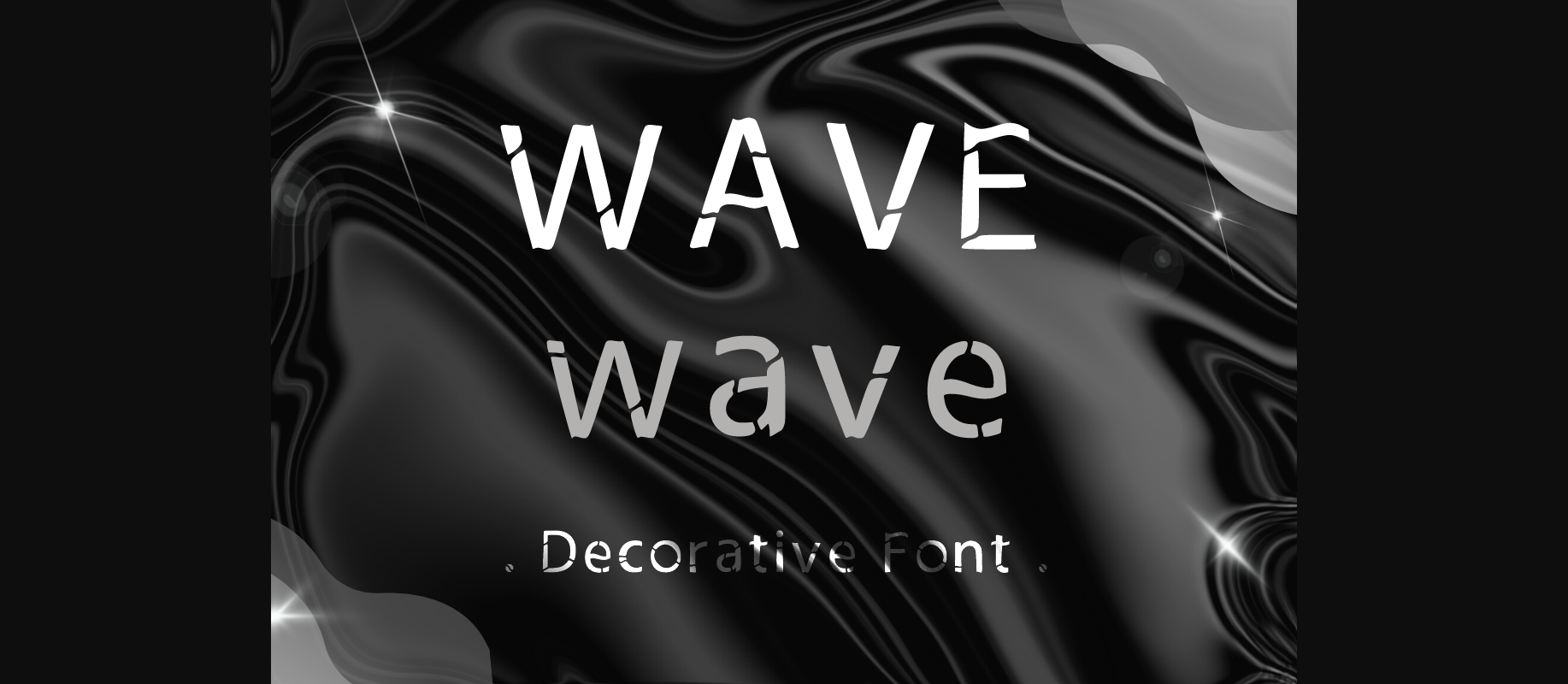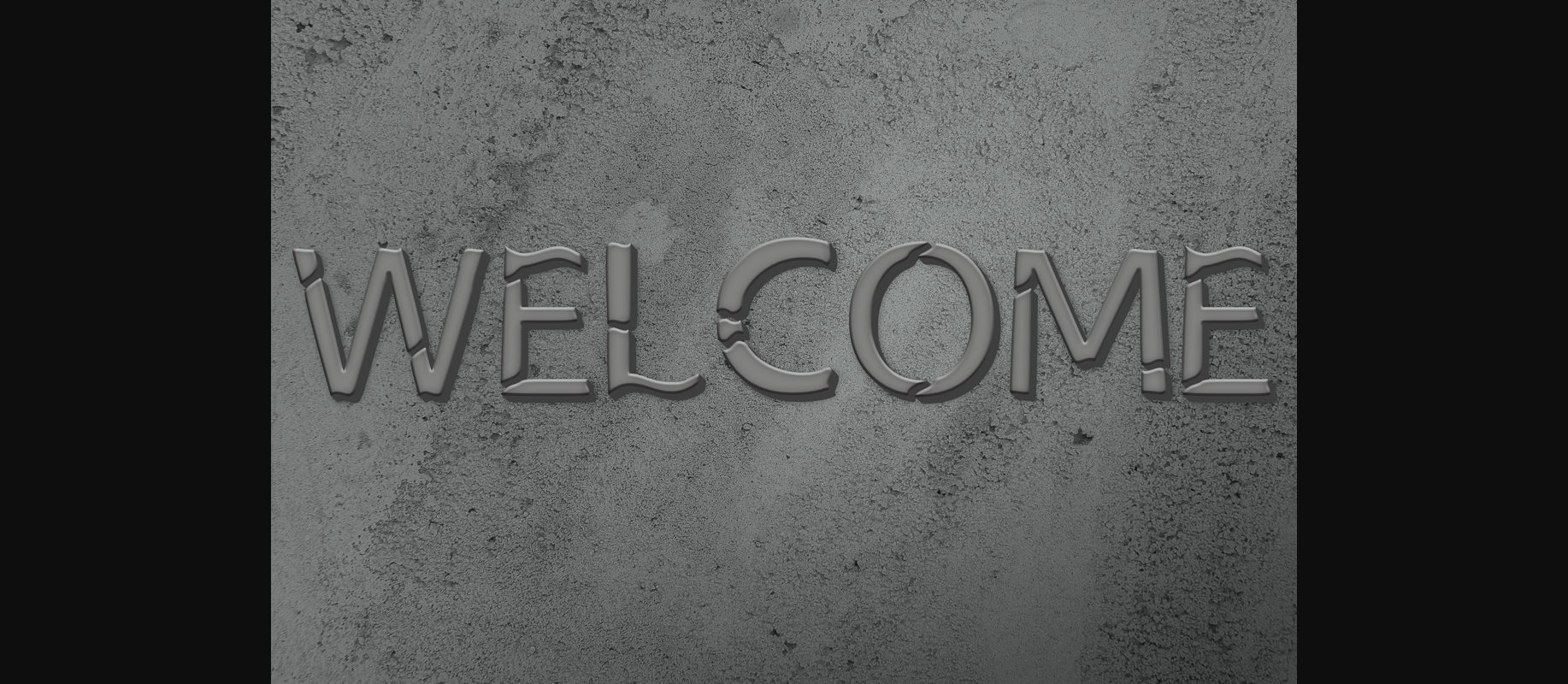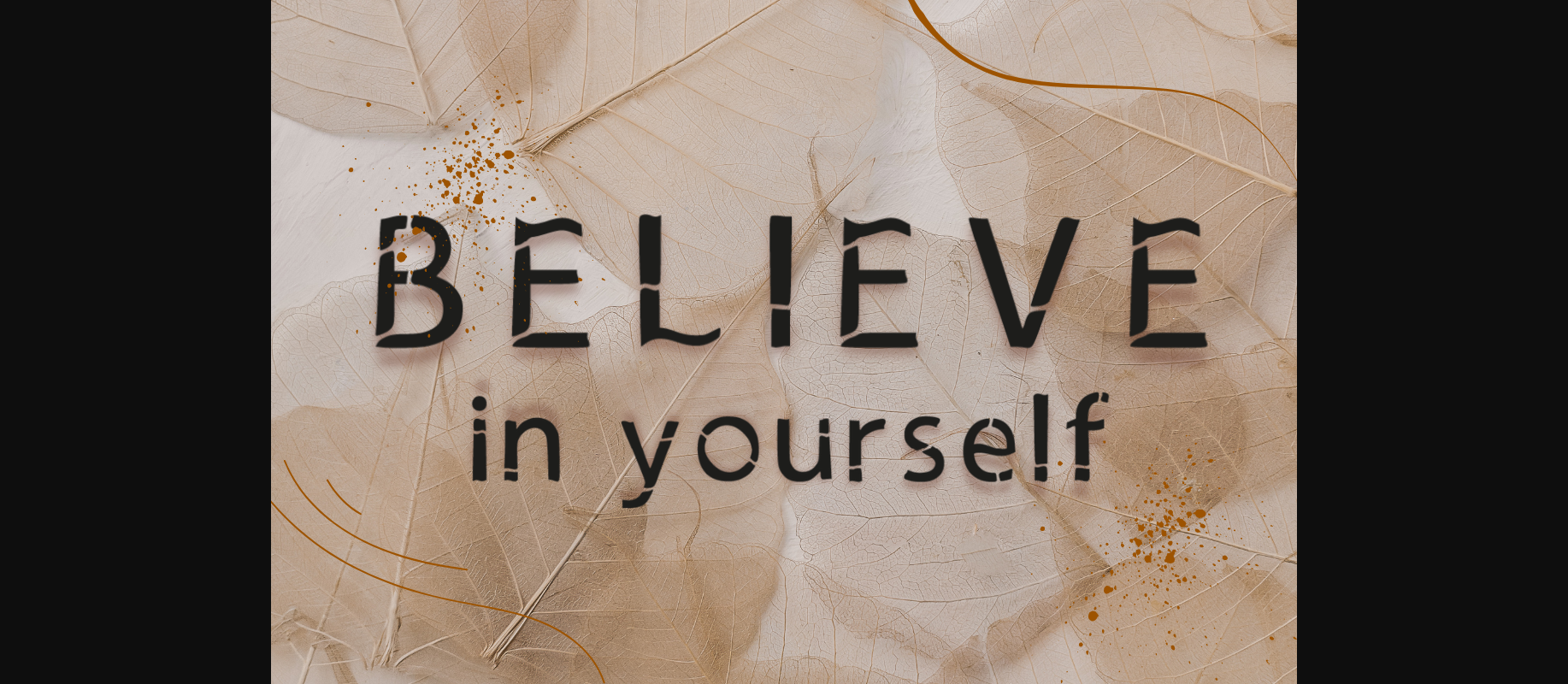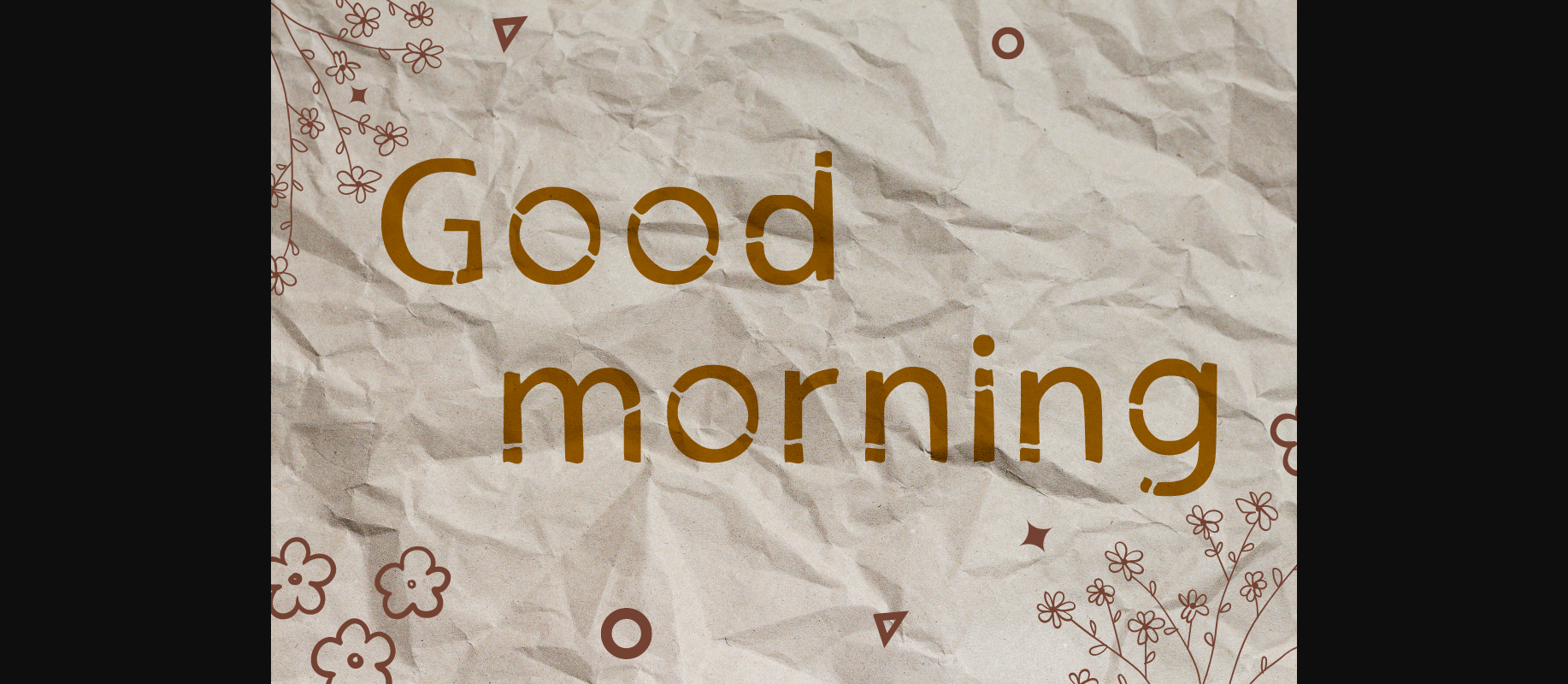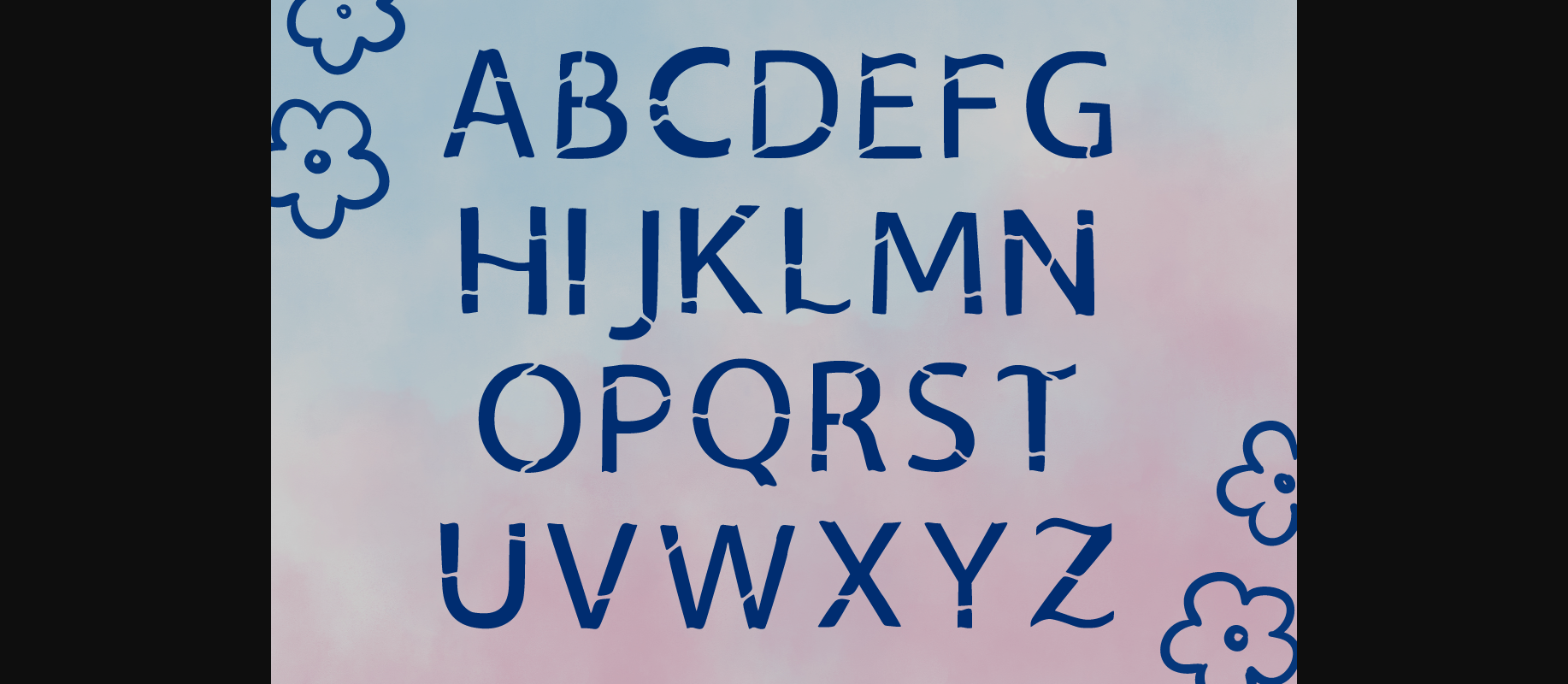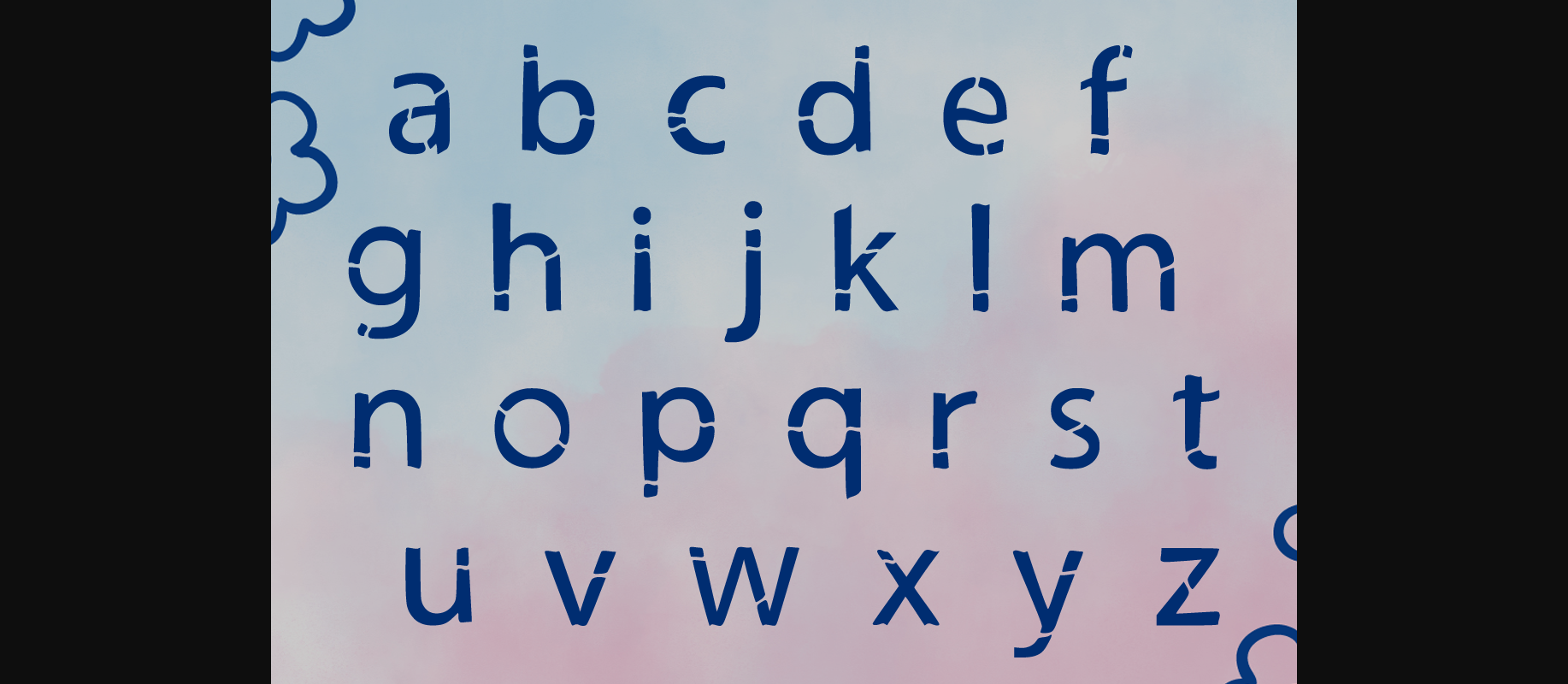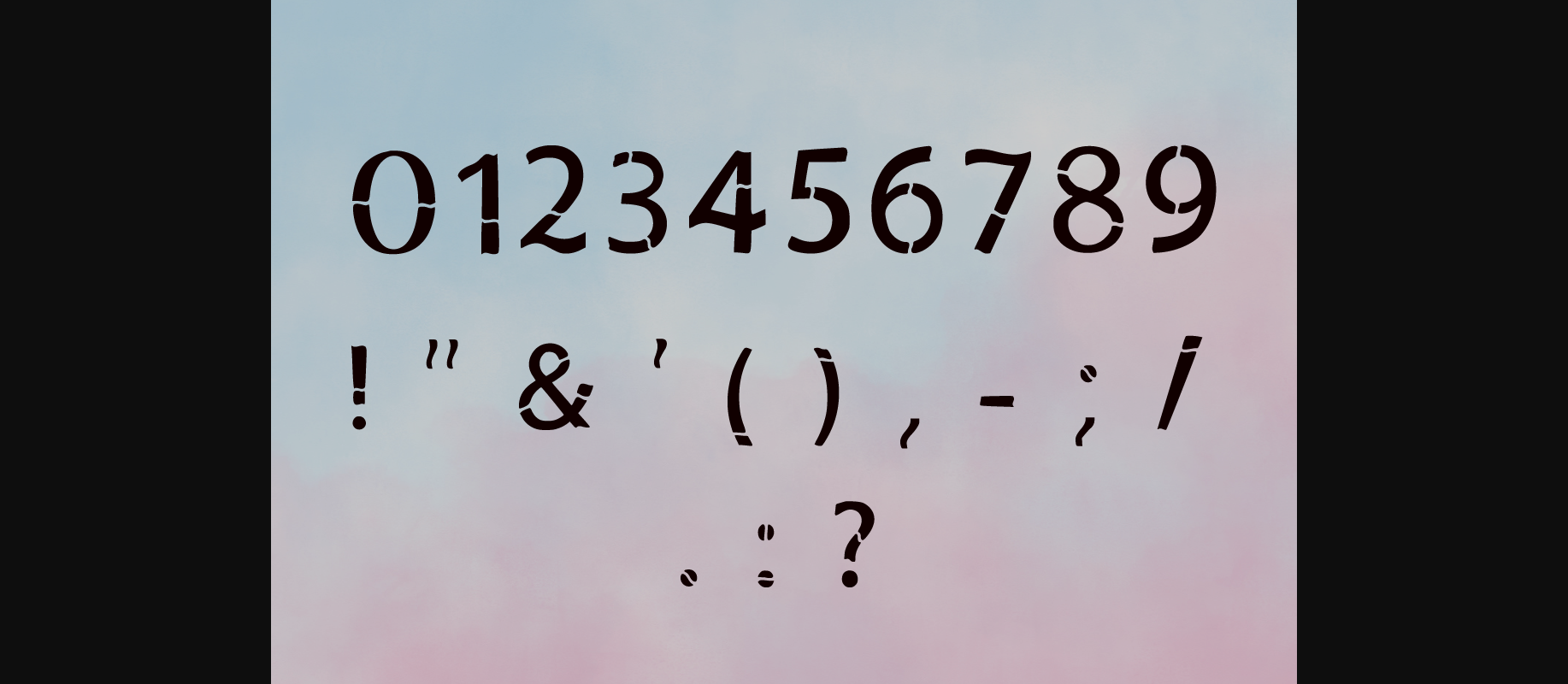
Wave Font
About Wave Font
Wave font is featuring bold lines and dynamic curves, this modern decorative font adds a touch of contemporary flair to any design. Ideal for headlines, logos, and eye-catching graphics, it’s the perfect choice for making a statement in your next project.